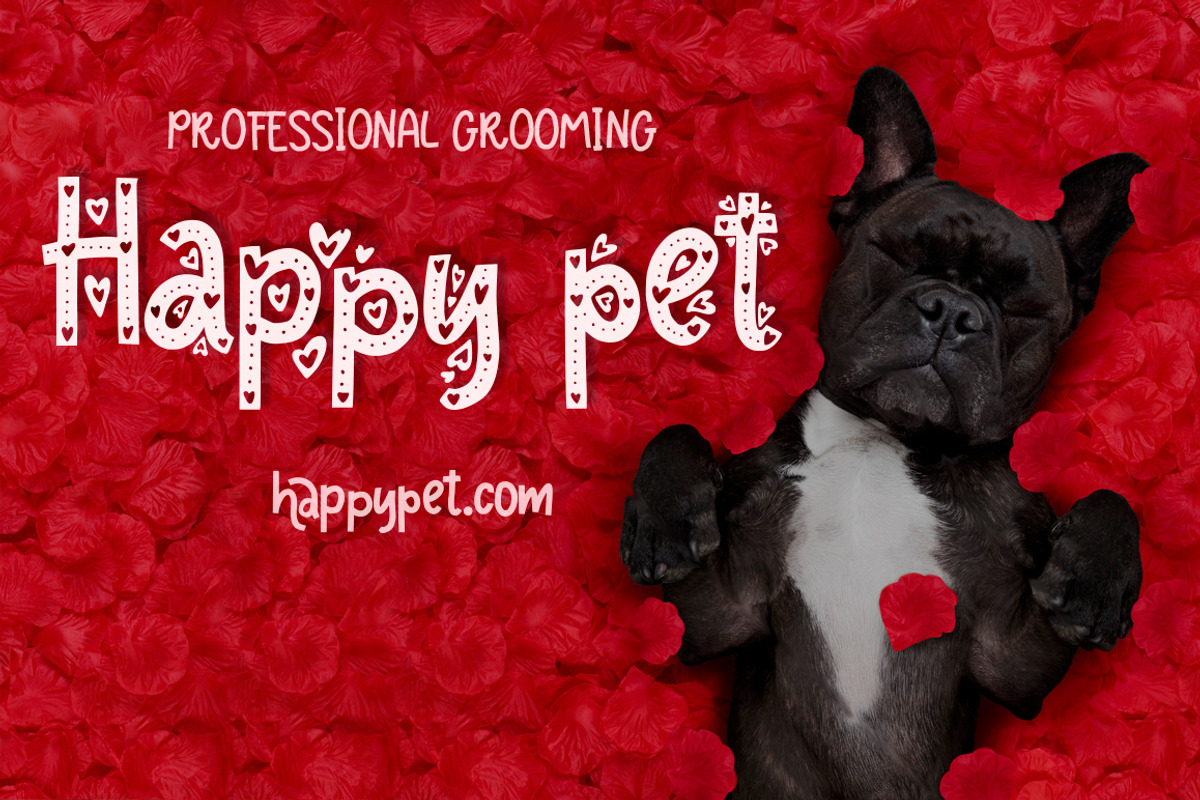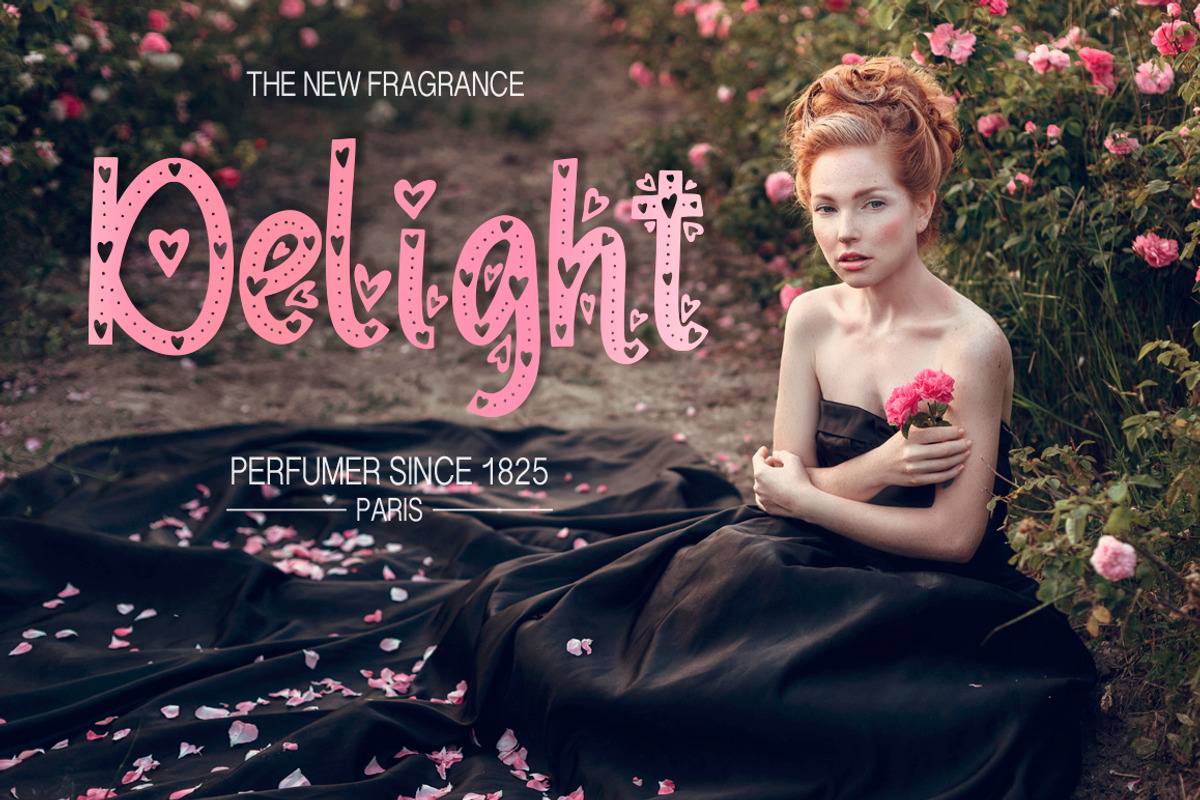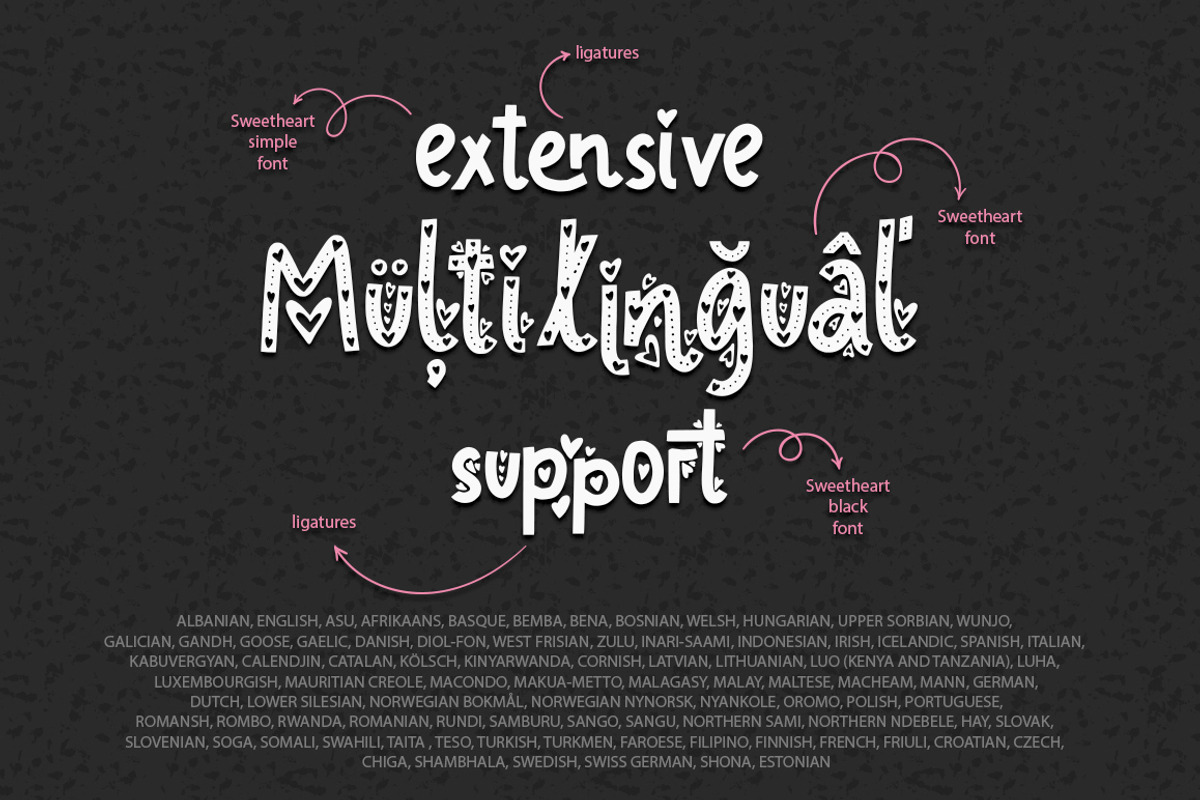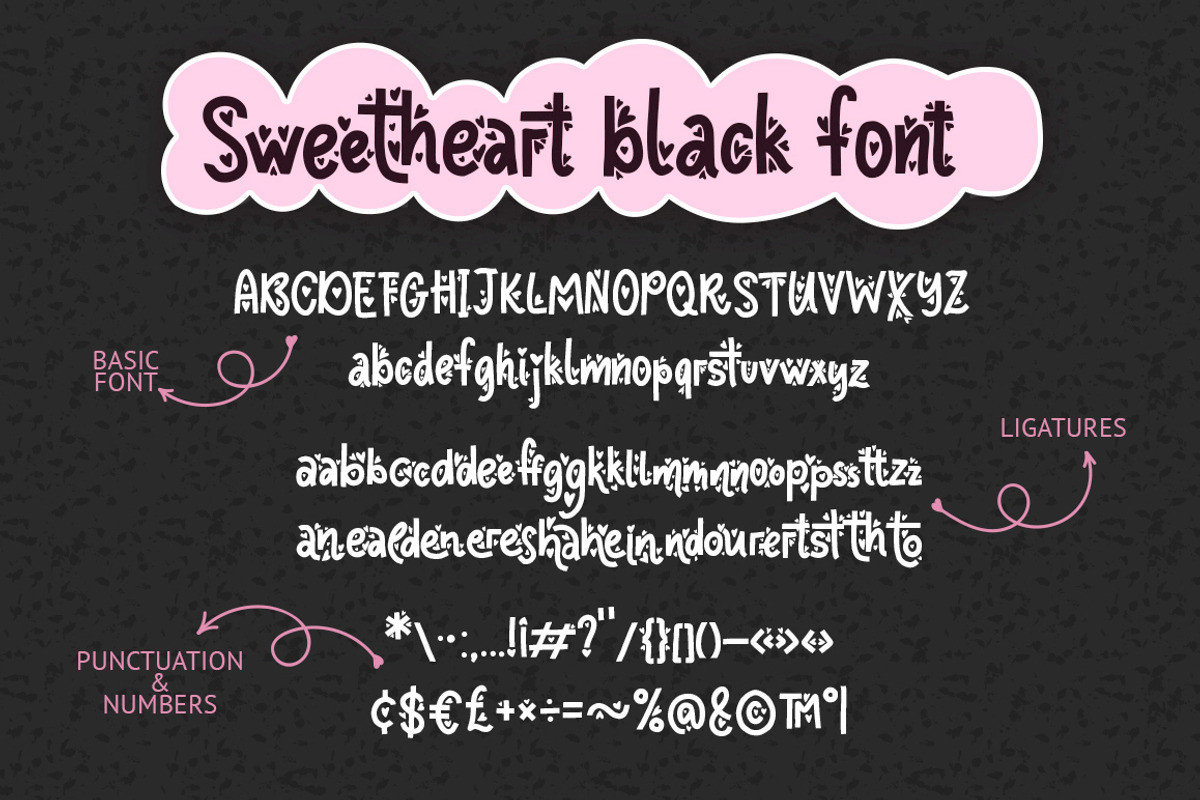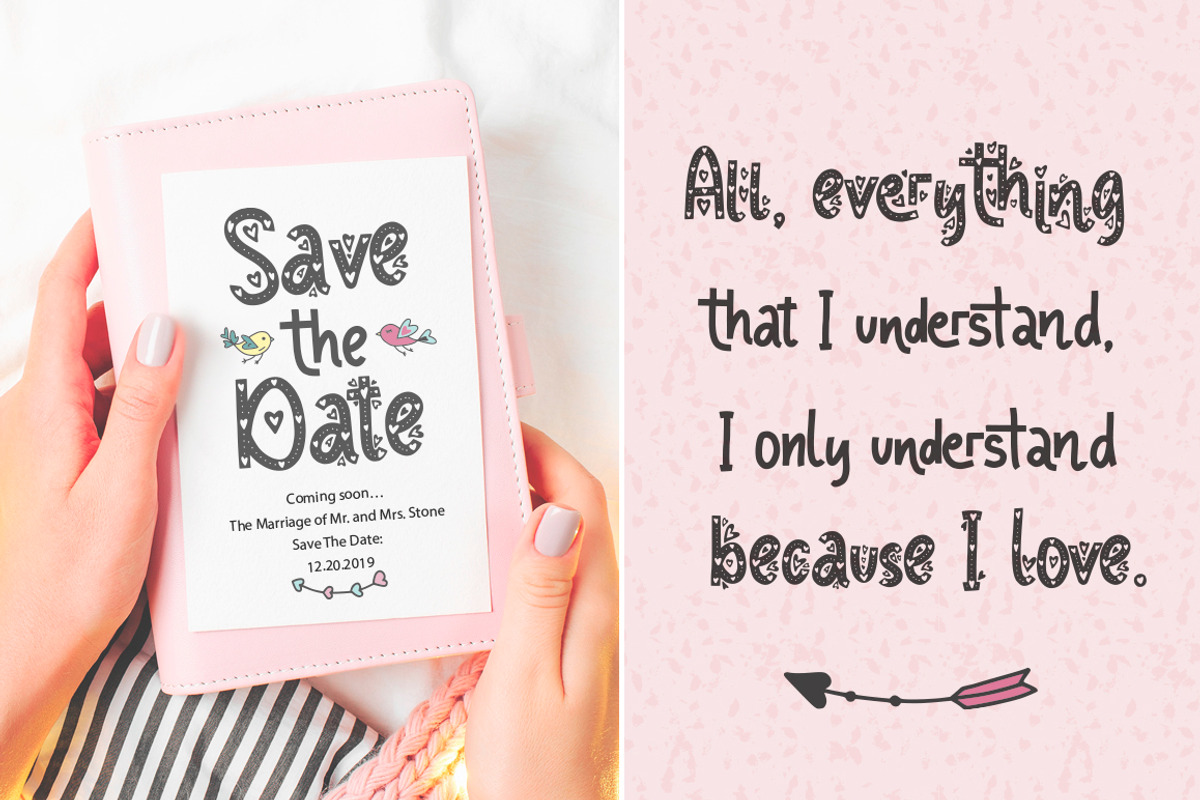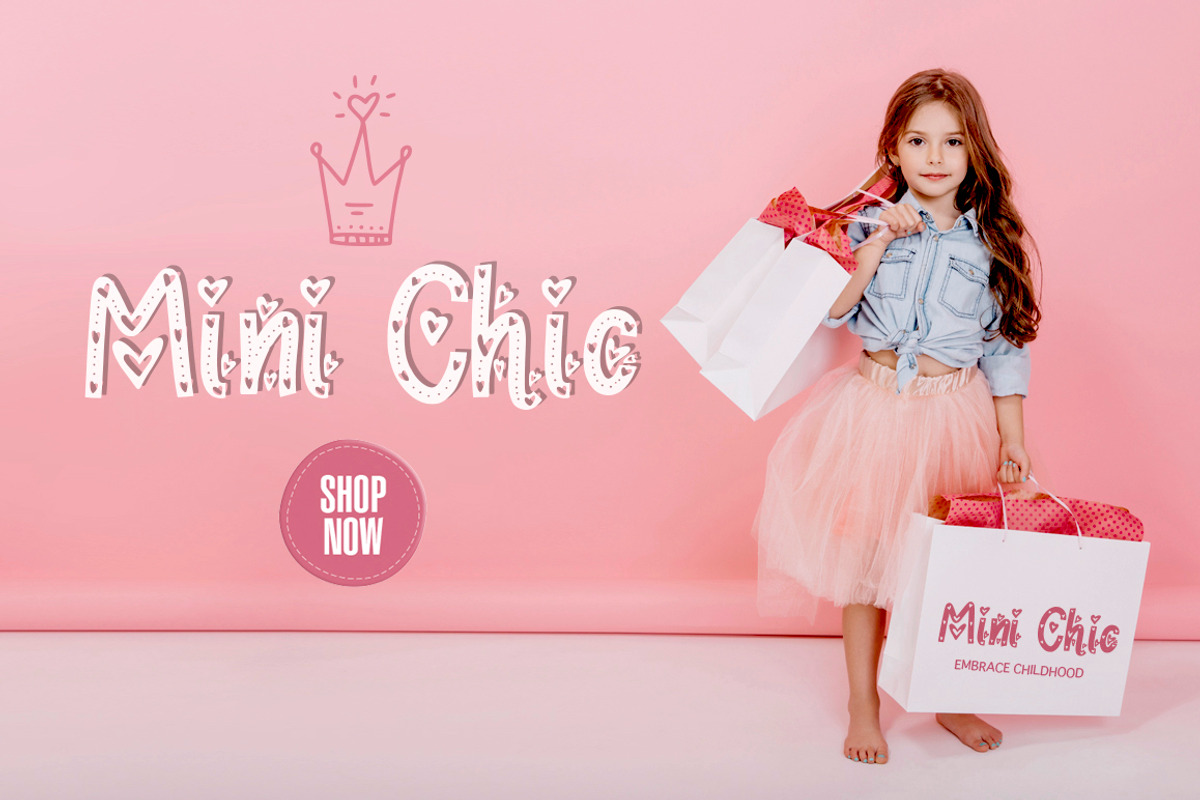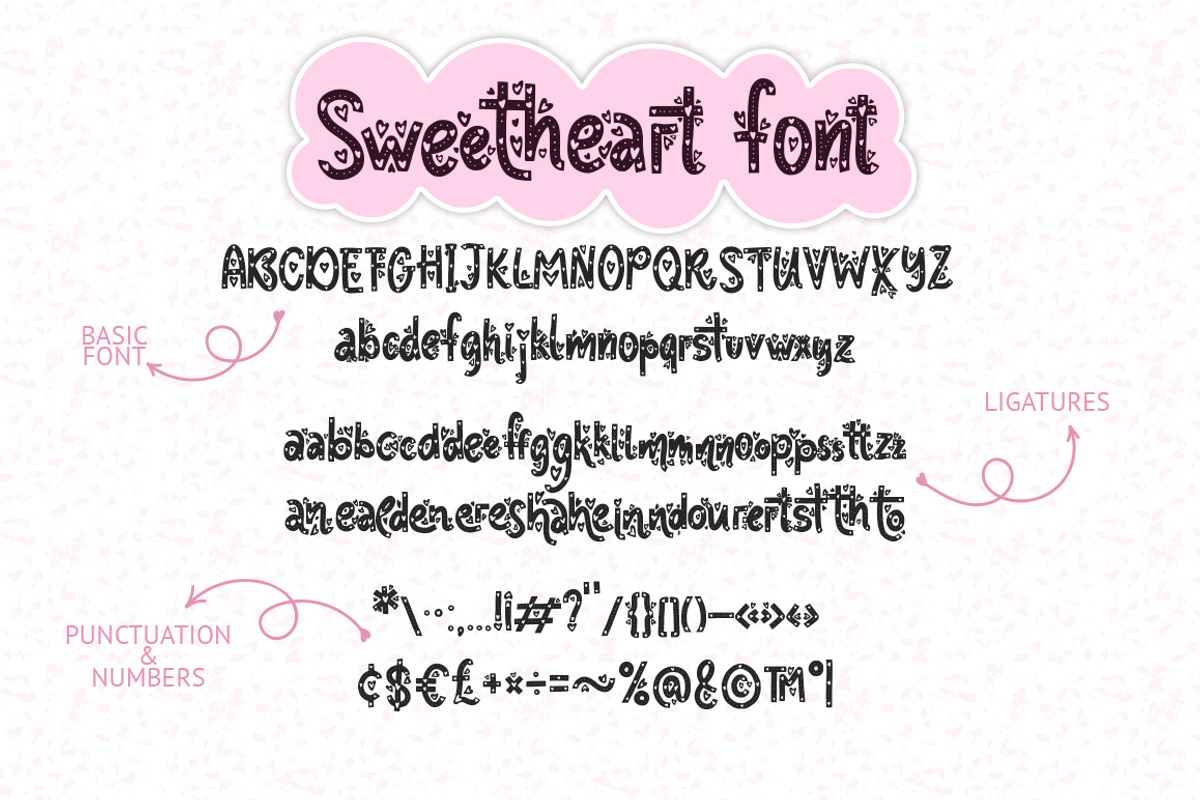
Sweetheart fonts & 119 cliparts.
Hi guys! I'm happy to introduce you my new lovely Valentine collection.
๐Sweetheart font family coming with 3 fonts & 119 clip arts.๐
Created with love, for messages about love, confessions, postcards and various lovely and cute designs. Mix & match clipart illustrations and fonts to create amazing designs, greeting cards, t-shirts, posters, mugs, branding materials, and any other projects you are working on.
Gentle cute cliparts help to supplement the fonts. All together they are an unique and complete tool for creating cute, marvelous designs about love, which will make everyone to smile.
Sweetheart black font (OTF, TTF, WOFF) - with extensive language support and lots of ligatures;
Sweetheart simple font (OTF, TTF, WOFF) - with extensive language support and lots of ligatures;